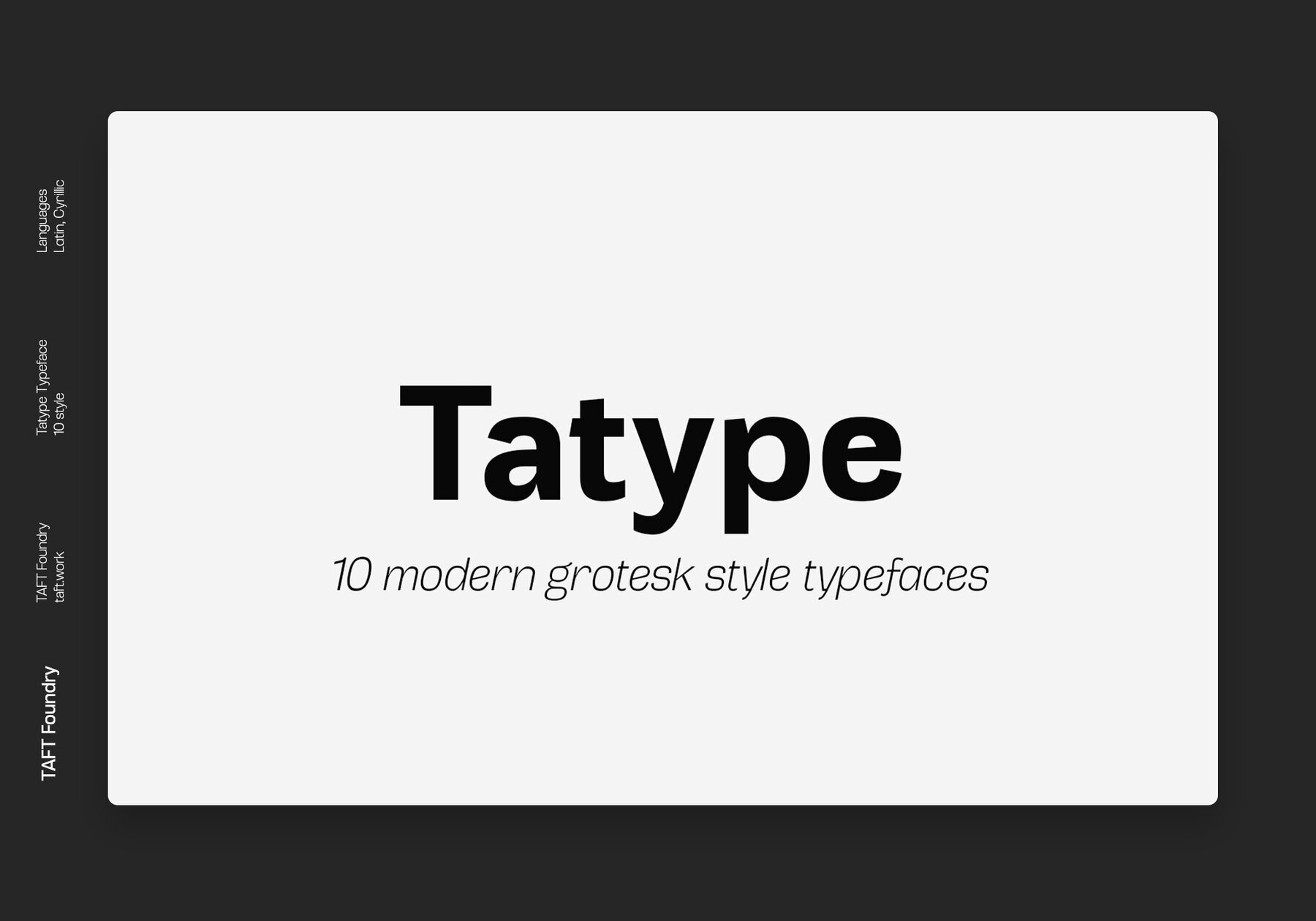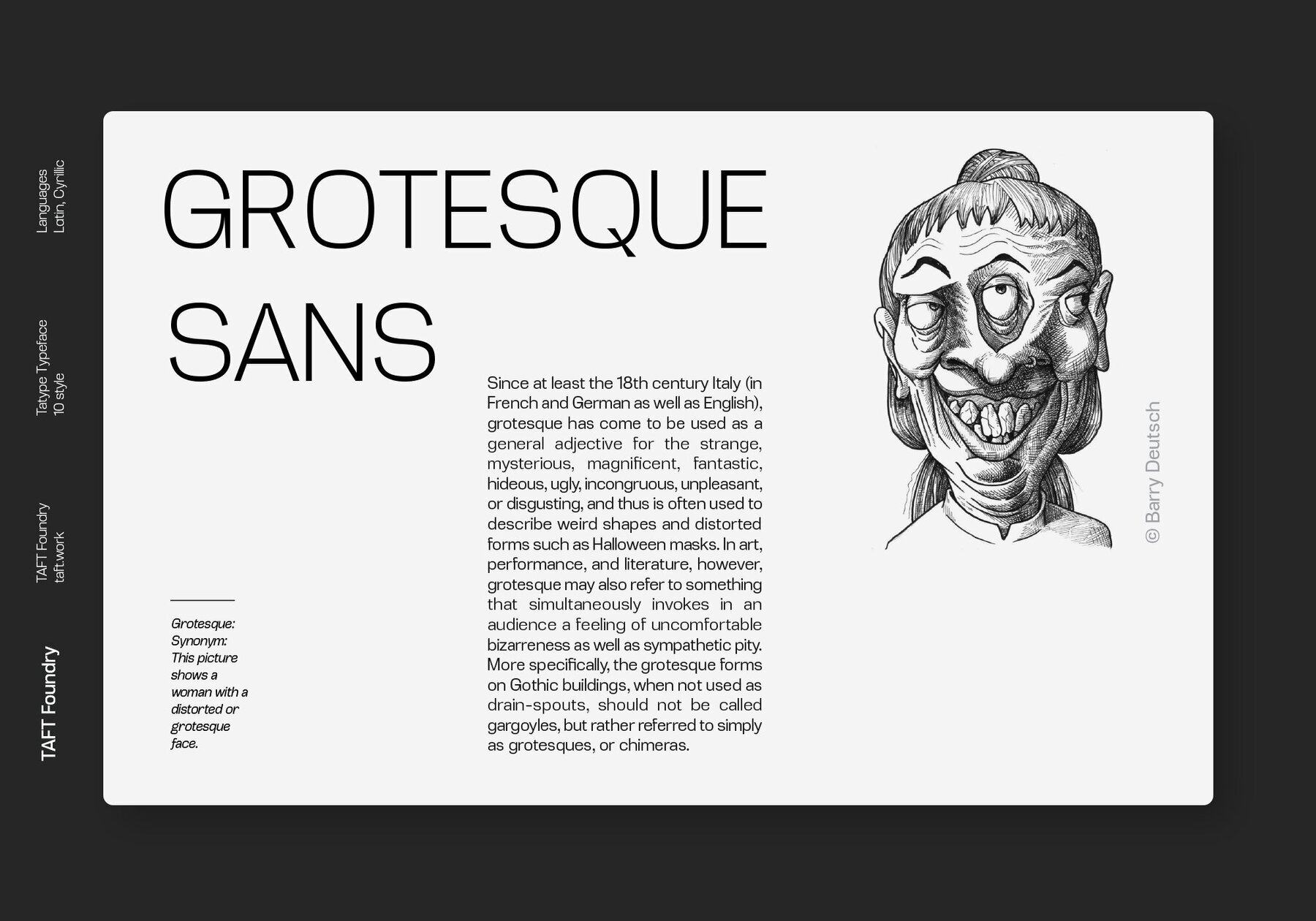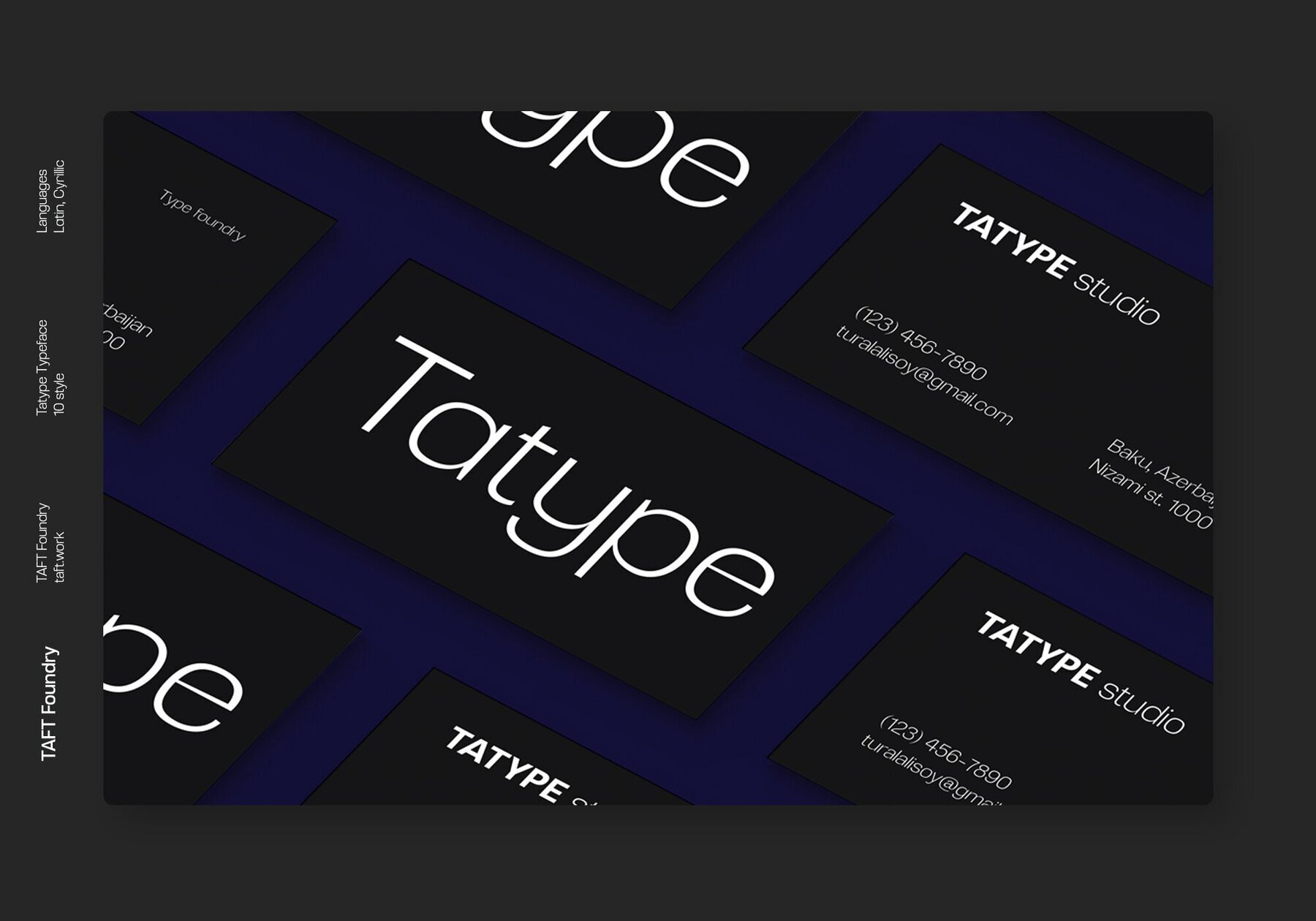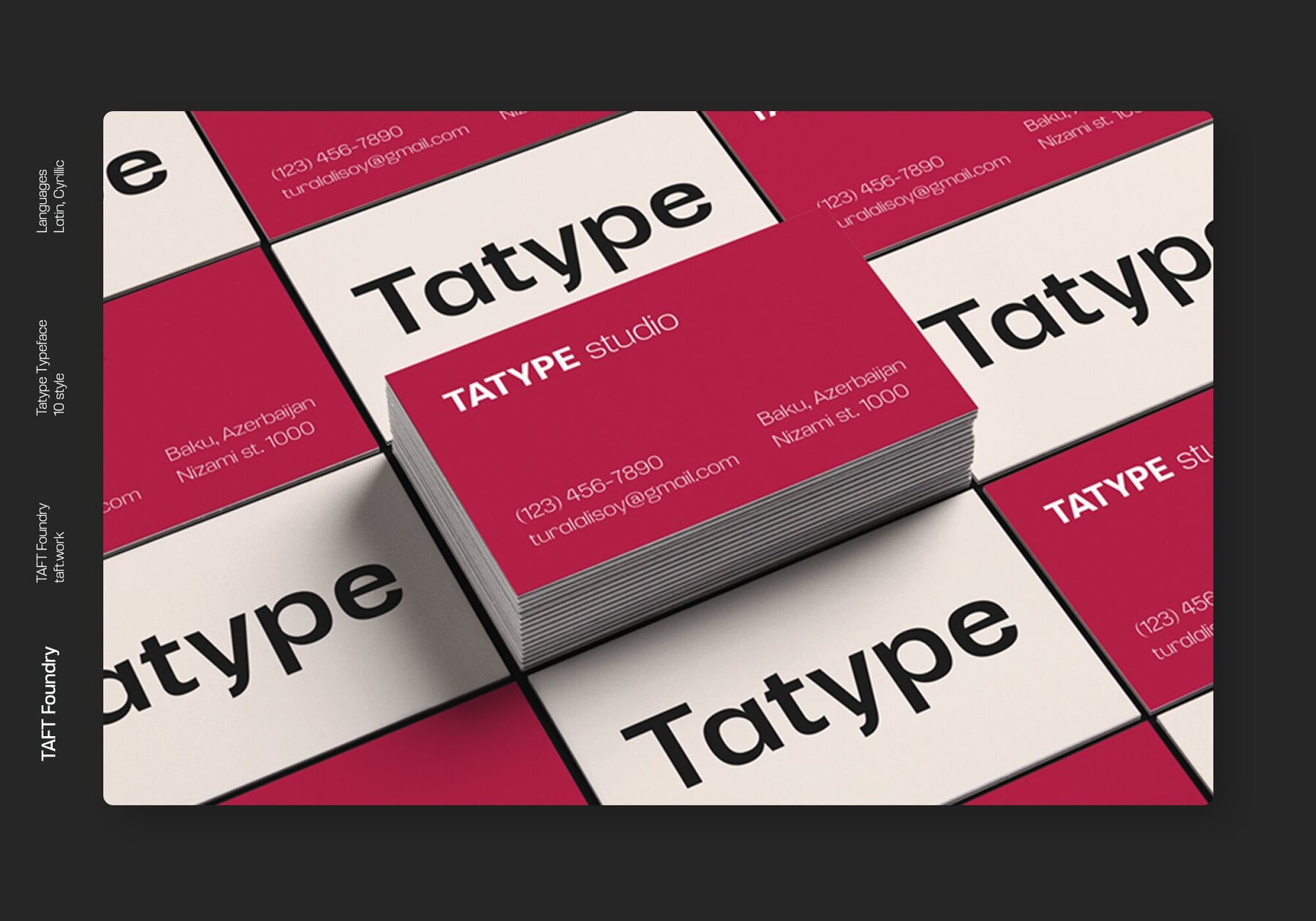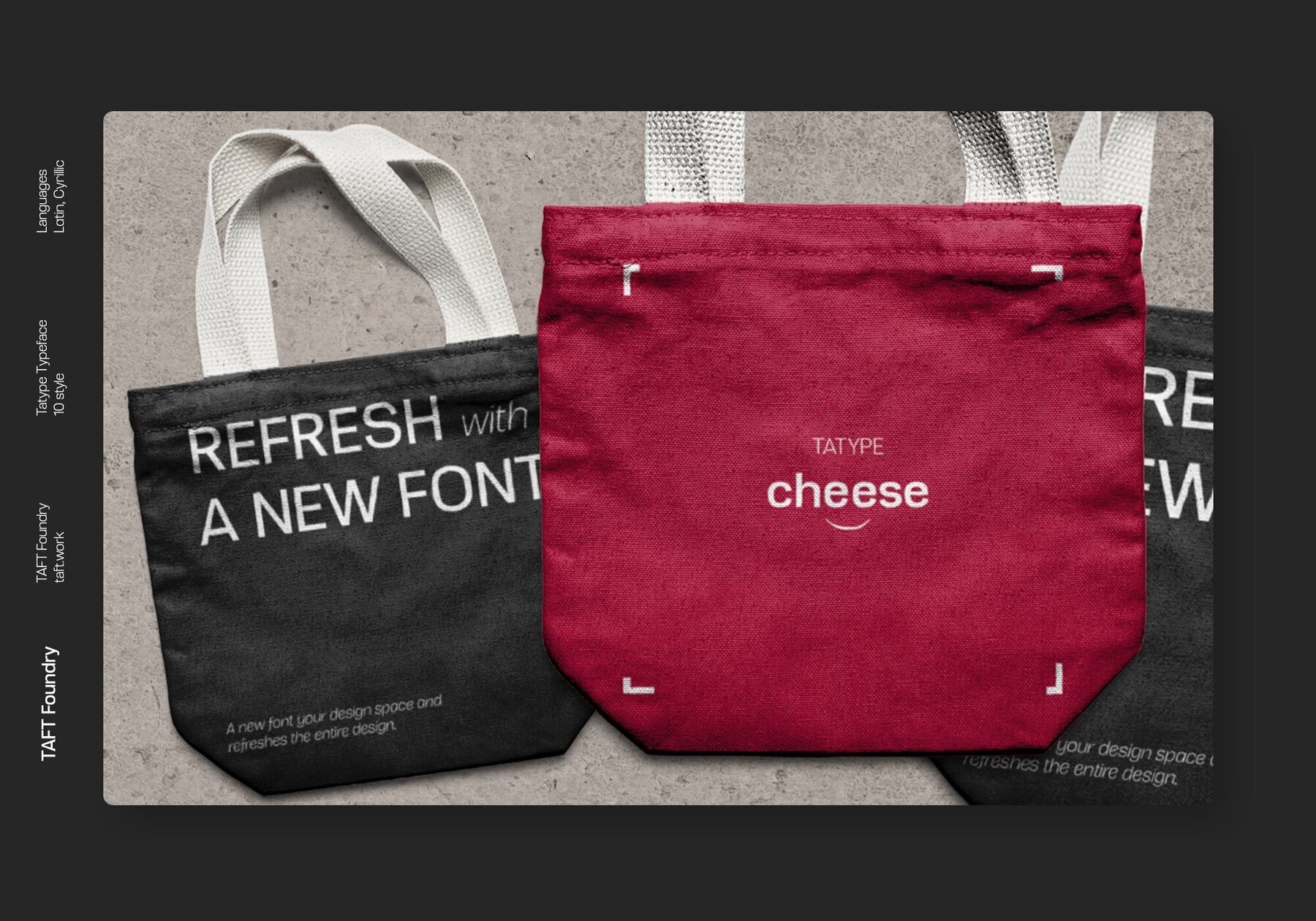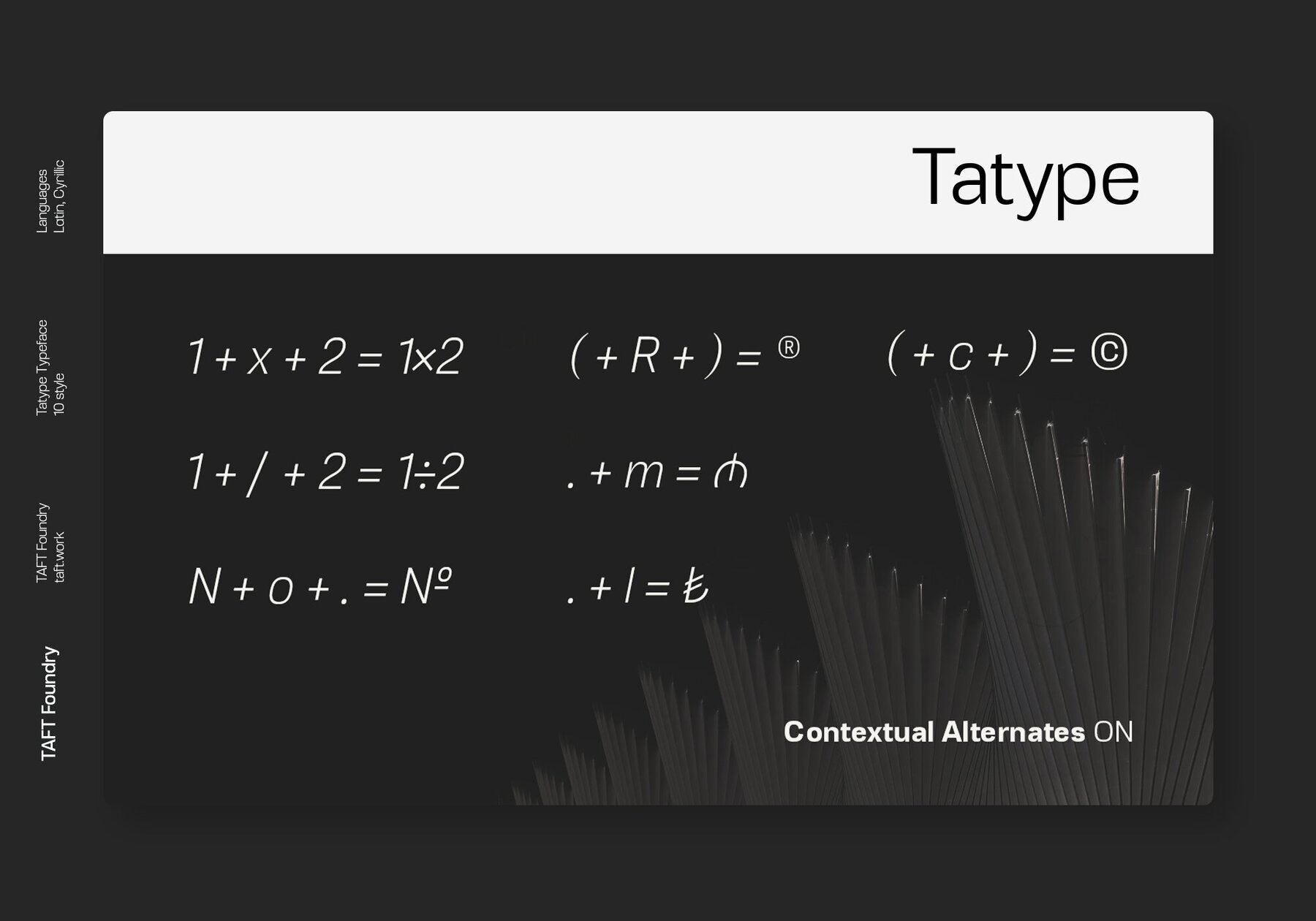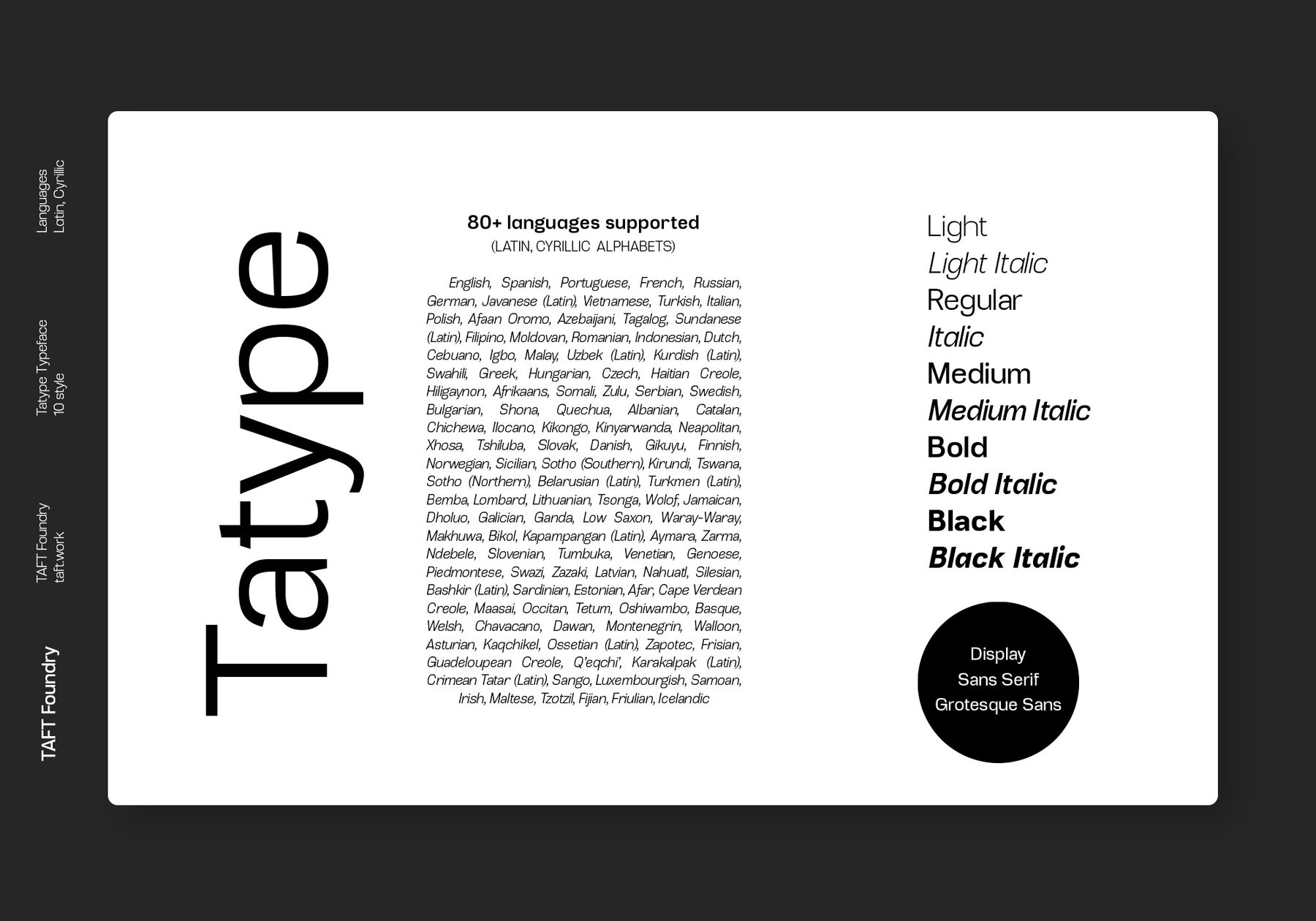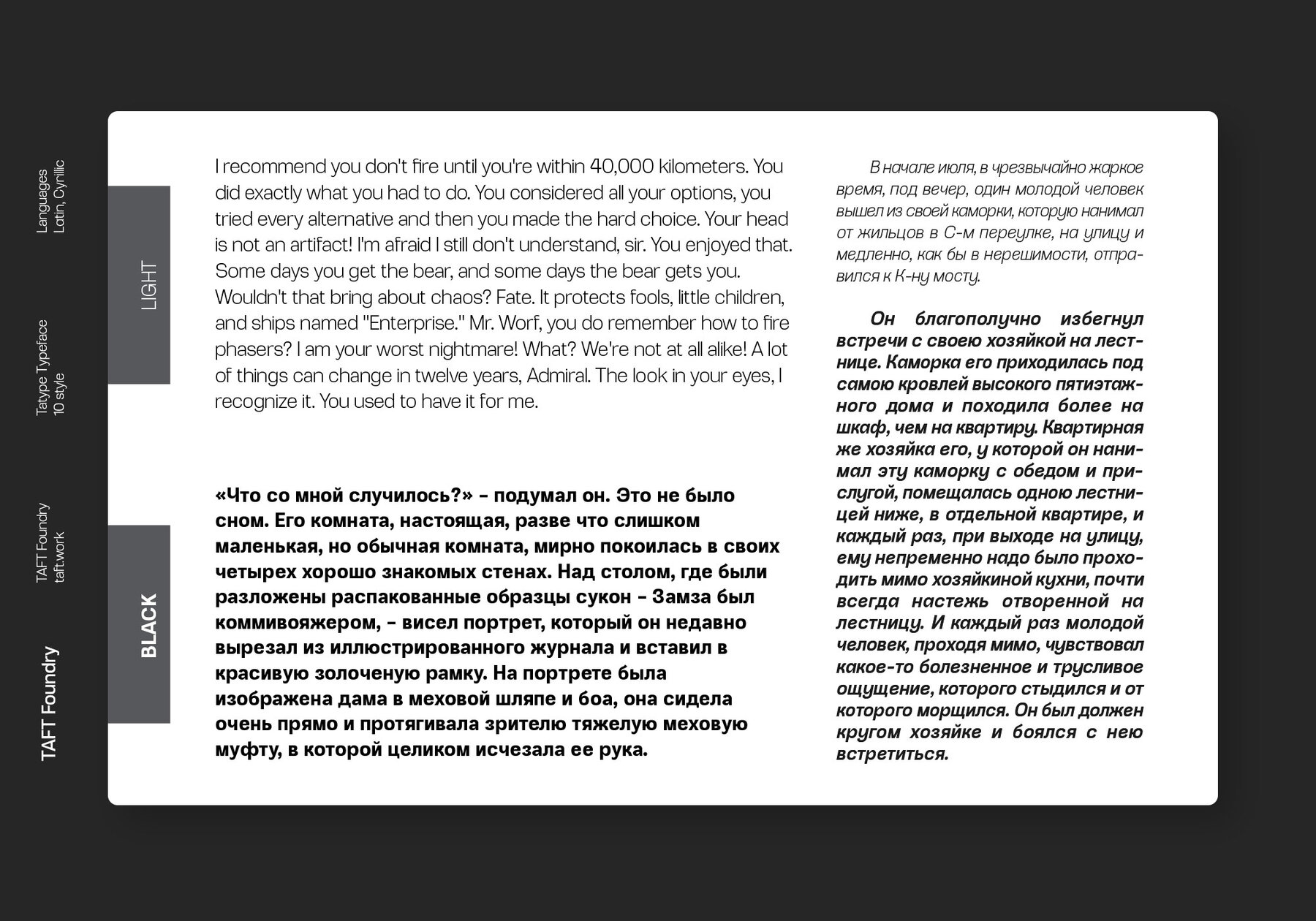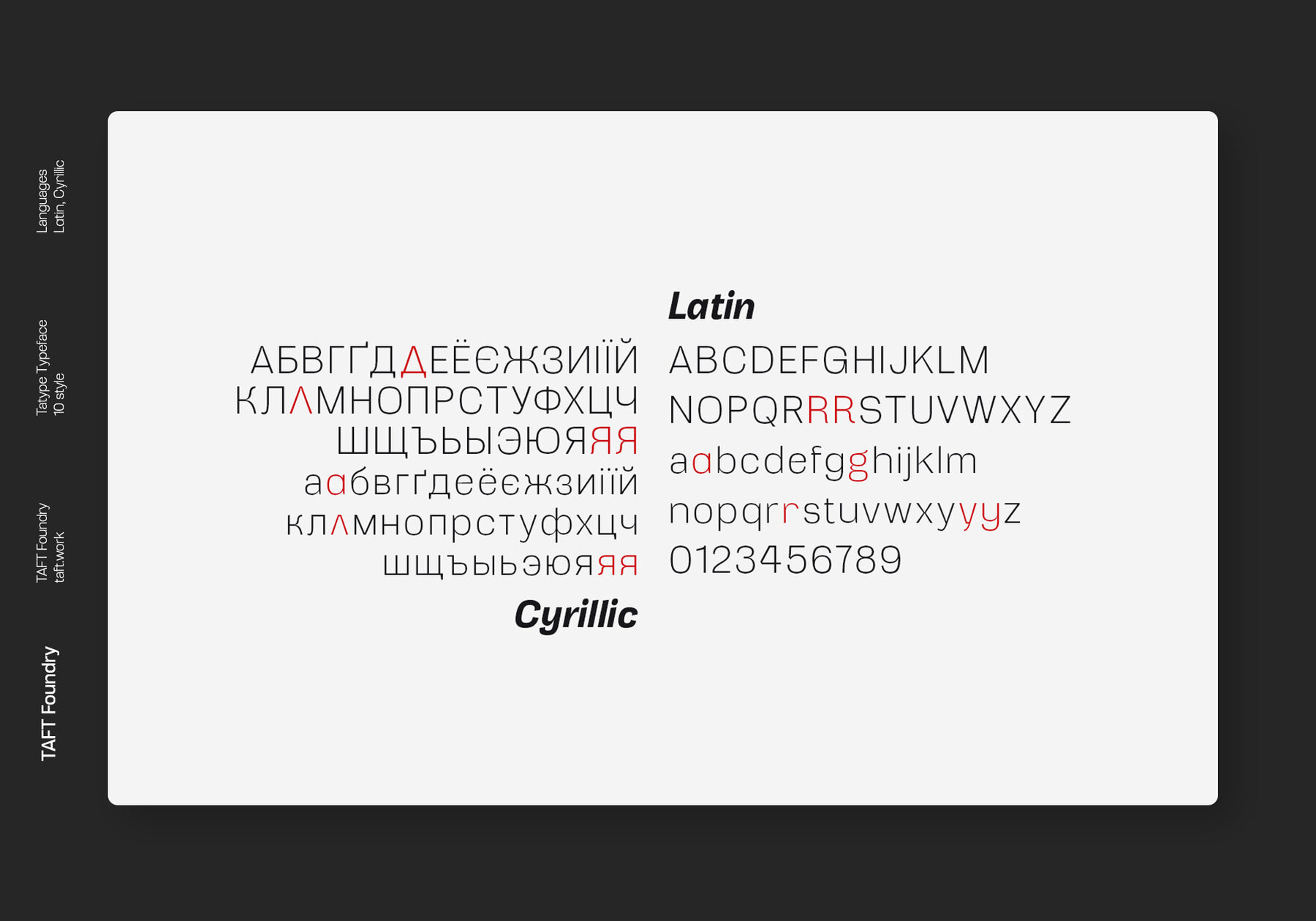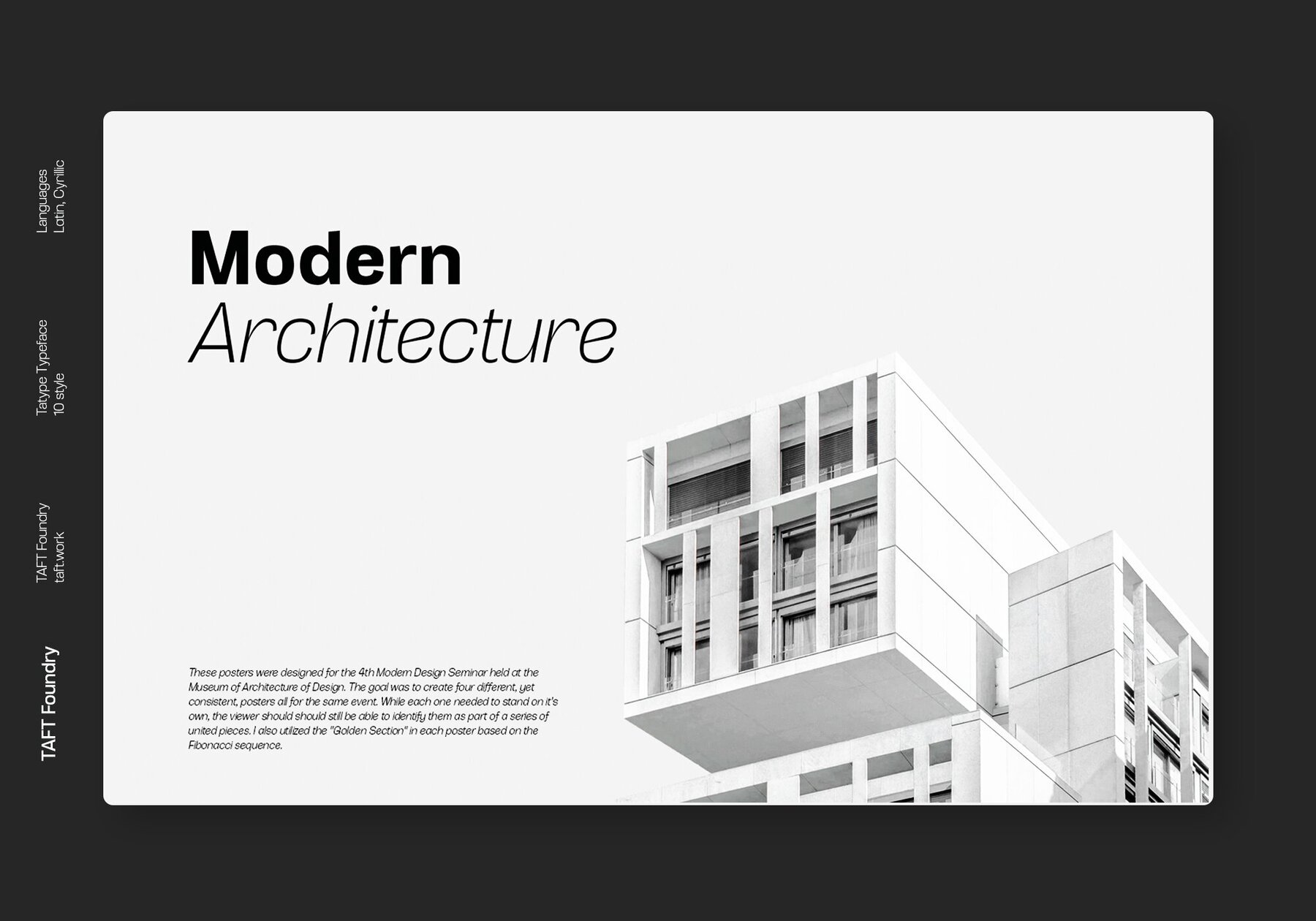
Tatype Font
Tatype has a built-in support for Latin basic, Latin Extended, Cyrillic, Central Europe, Turkish, Baltic, Romanian, Euro, West European based languages. Alternative letterforms are ideal for customizing the overall appearance of a text, for usage in logos or they can even work as custom fonts for companies. OpenType features: Access All Alternates, Contextual Alternates, Case-Sensitive Forms, Discretionary Ligatures, Denominators, Fractions, Kerning, Standard Ligatures, Localized Forms, Numerators, Ordinals, Stylistic Alternates, Scientific Inferiors, Stylistic Set 1-11, Subscript, Superscript